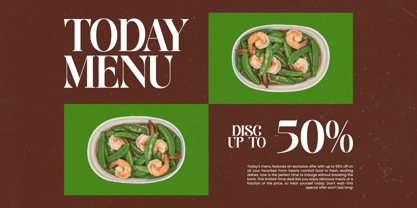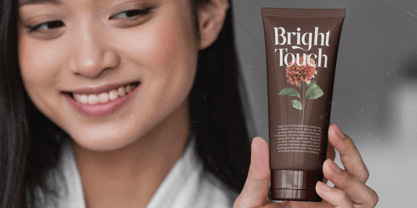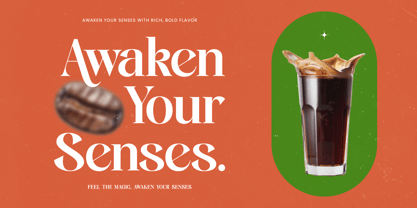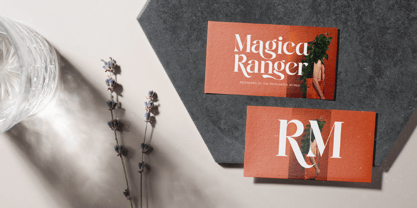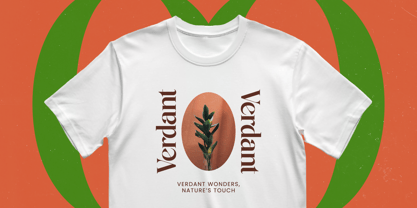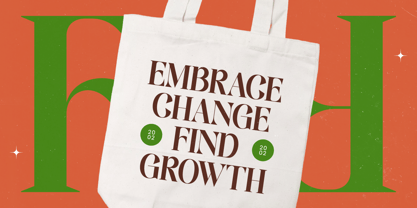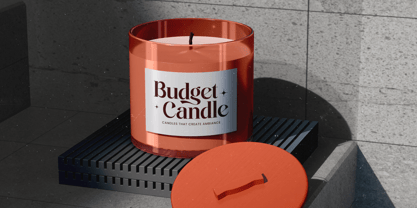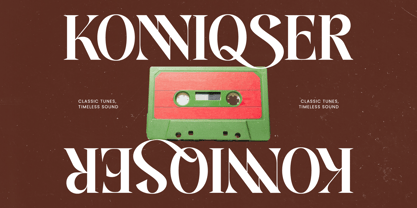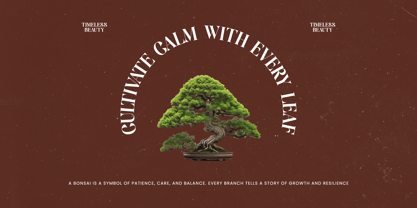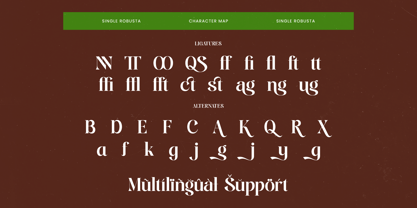
Single Robusta
by Timelesstype Studio
The Single Robusta Font Family was designed by Heru Utama Putra and published by Timelesstype Studio. Single Robusta contains 2 styles and family package options. More about this family
Single Robusta - Bold Tall Serif Dislay Font , from Timelesstype, Suitable for any projects such as: logos, branding projects, homeware designs, product packaging, mugs, quotes, posters, shopping bags, t-shirts, book covers, name card, invitation cards, greeting cards, label, photography, watermark, special events, and all your other luxury and beautiful projects that need a Luxury Serif taste.